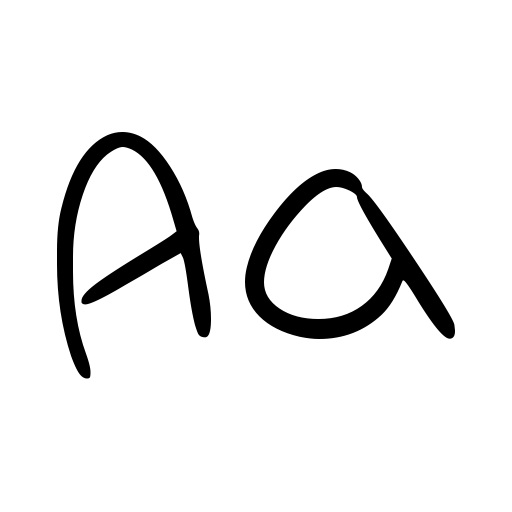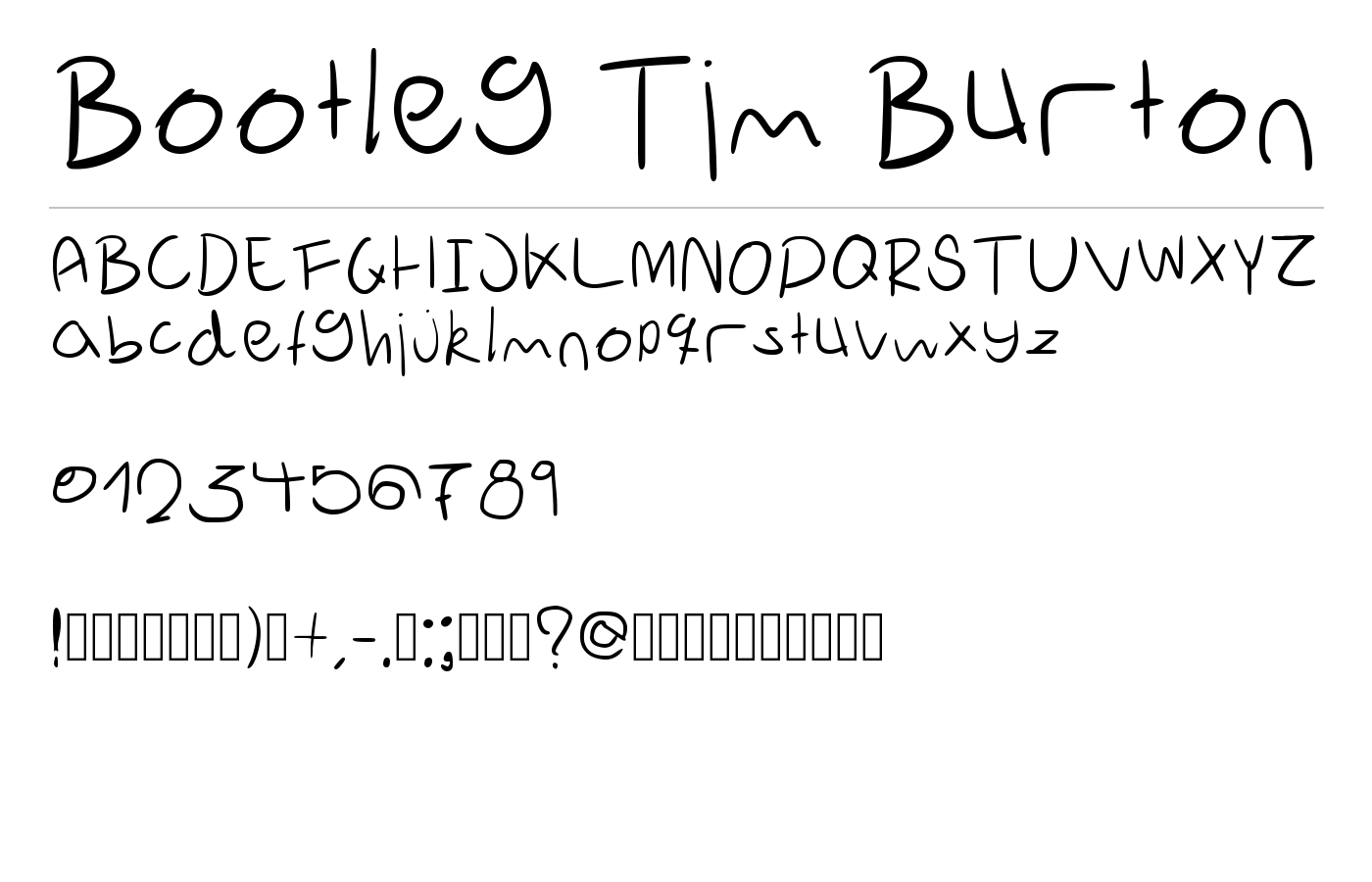
Bootleg Tim Burton Font is a whimsical, playful handwritten typeface with thin, uneven strokes that give it a quirky and slightly eerie character. Its casual, loose letterforms evoke a creative, storybook vibe perfect for designs needing a touch of eccentricity and charm. This font works well for Halloween-themed projects, personal invitations, or any branding that aims to capture a fun yet mysterious mood.
Bootleg Tim Burton Font
About Bootleg Tim Burton Font